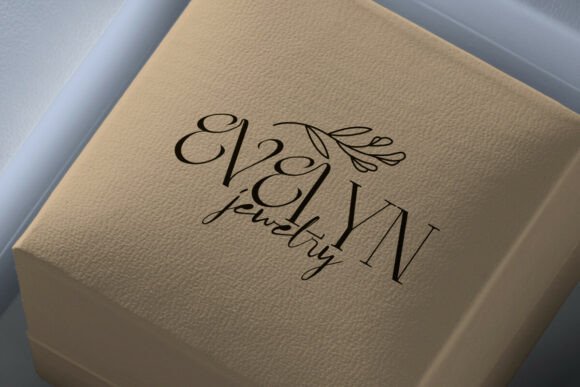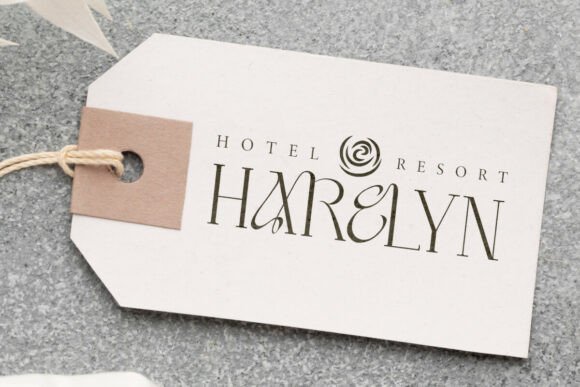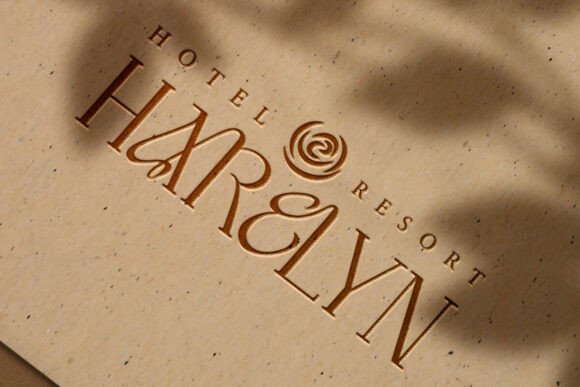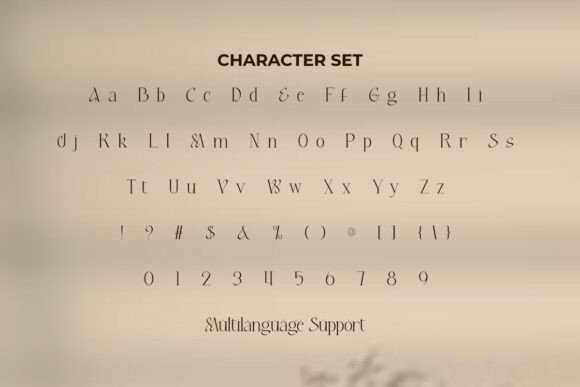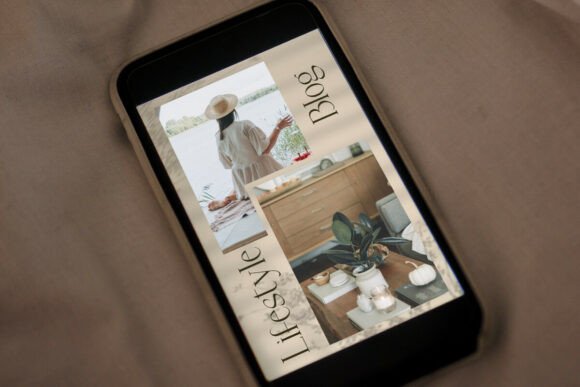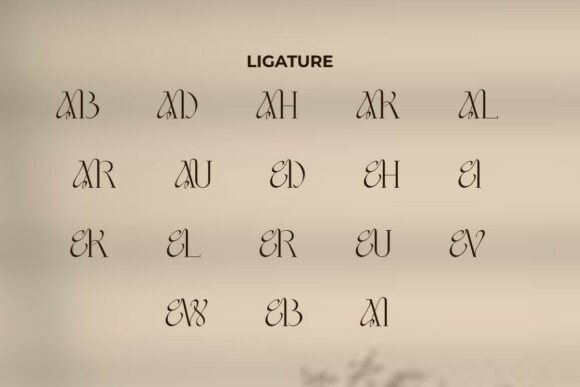
Introducing Harelyn Font: Elevate Your Designs with Elegance and Sophistication
In the world of typography, a well-chosen font can make all the difference in transforming a design from ordinary to extraordinary. For those seeking a touch of elegance and class, Harelyn Font is an exceptional choice. This sophisticated and elegant serif display typeface is crafted with delicate, flowing lines that resemble the graceful curves of flower petals, making it perfect for designs that demand a high level of refinement.
A Refined Appearance for Diverse Design Projects
Harelyn Font boasts a refined appearance that lends itself beautifully to a wide variety of design projects. Whether you’re working on branding, book covers, custom designs, flyers, invitations, labels, magazines, marketing materials, menus, posters, product packaging, quotes, signage, stationery, websites, or more, this font adds a charm and style that’s hard to match. Its artistic detail and flowing lines bring a level of sophistication that can elevate any design, making it stand out in a crowded field.
Versatility Across Industries
The versatility of Harelyn Font extends across numerous industries, making it an invaluable asset for designers who work with a broad client base. From accessories and advertising to beauty, café, crafting, events & wedding planning, fashion, home decor, jewelry, marketing, film, printing, publishing, real estate, restaurant, or spa and wellness industries, Harelyn brings a consistent level of elegance and professionalism to design work. This font’s ability to adapt to different contexts and applications is a testament to its high-quality design and craftsmanship.
Stylish Ligatures for Enhanced Creativity
One of the standout features of Harelyn Font is its inclusion of stylish ligatures. These ligatures are not just aesthetically pleasing; they also enhance the font’s creative versatility. Ligatures allow designers to create unique and flowing text that can add an extra layer of sophistication to any design. Whether you’re looking to add a personal touch to a brand’s logo or create an eye-catching headline, Harelyn’s ligatures provide the flexibility and style needed to bring your vision to life.
Why Choose Harelyn Font?
There are several reasons why designers and crafters should consider Harelyn Font for their projects. First, its elegant and sophisticated design ensures that any project stands out for its refinement and class. Second, its versatility across different design applications and industries makes it a valuable addition to any designer’s toolkit. Third, the inclusion of stylish ligatures and PUA encoding enhances its creative potential and ease of use. Lastly, Harelyn Font’s ability to bring a touch of beauty and elegance to designs makes it an excellent choice for those looking to create high-impact, memorable work.
In conclusion, Harelyn Font is a sophisticated and elegant serif display typeface that offers designers a refined and versatile tool for their creative projects. With its delicate, flowing lines, stylish ligatures, and PUA encoding, Harelyn is well-suited for a wide range of design applications, from branding and book covers to signage and websites. Its ability to bring elegance and professionalism to design work makes it an invaluable asset for designers across various industries. Whether you’re looking to elevate your design work or simply seeking a font that combines beauty with functionality, Harelyn Font is an exceptional choice.